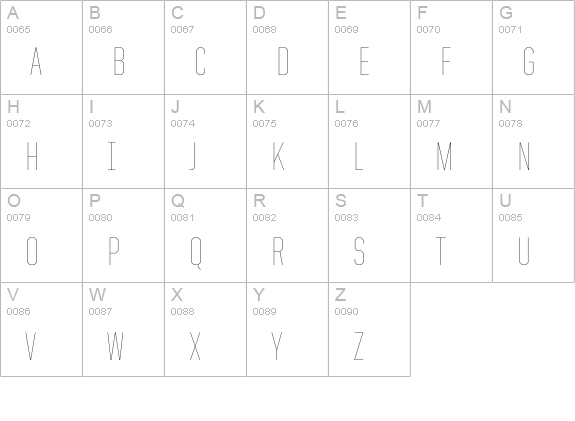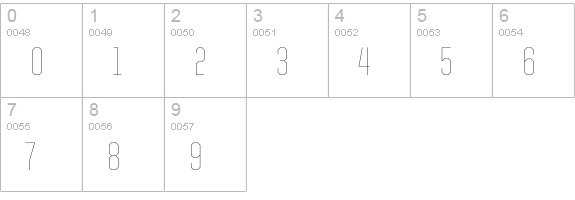
United Sans Cond Thin Font Details
United Sans Cond Thin is a delicate, low-contrast, condensed-width variant in the United typeface family \xE2\x80\x94 well suited to fashion editorial, minimal branding, and high-contrast display.
United Sans Cond Thin is a sleek and elegant typeface that exudes sophistication and modernity. With its thin and delicate strokes, this font is perfect for adding a touch of refinement to any design project. Whether you're creating a logo, designing a website, or crafting a stylish invitation, United Sans Cond Thin will surely elevate your work to the next level. This font is not only visually appealing but also incredibly versatile. Its clean and minimalistic design allows it to seamlessly blend into various design styles, making it suitable for both professional and creative applications. Whether you're going for a minimalist aesthetic or a bold and eye-catching look, United Sans Cond Thin has got you covered. And the best part? United Sans Cond Thin is available for free! You can easily download this font from FontsMarket.com, a trusted source for high-quality fonts. By offering this font for free, FontsMarket.com ensures that designers and creatives of all backgrounds can access and use this beautiful typeface without any limitations. So go ahead and give your designs a touch of elegance with United Sans Cond Thin. Download it today from FontsMarket.com and unlock a world of possibilities for your next creative endeavor.